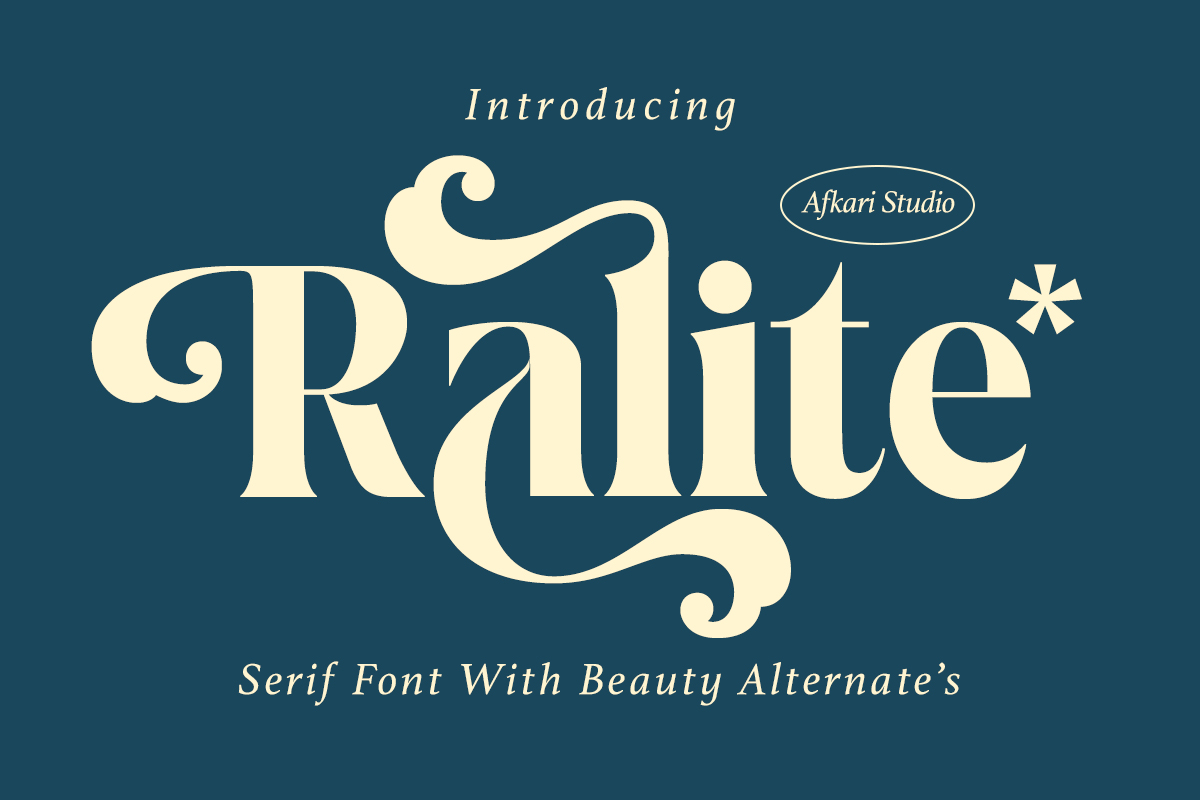
Ralite - Modern Serif Display Font Font
Designed by Afkari Studio
About Ralite - Modern Serif Display Font
RALITE - Modern Serif Swashes Font is a sophisticated and elegant typeface that blends contemporary serif styles with unique swash accents. Perfect for branding, editorial designs, logos, and luxurious print materials, RALITE offers a modern yet timeless appeal. Its distinct swashes add a graceful touch, making it ideal for projects requiring a refined and artistic aesthetic.
Ralite - Modern Serif Display Font